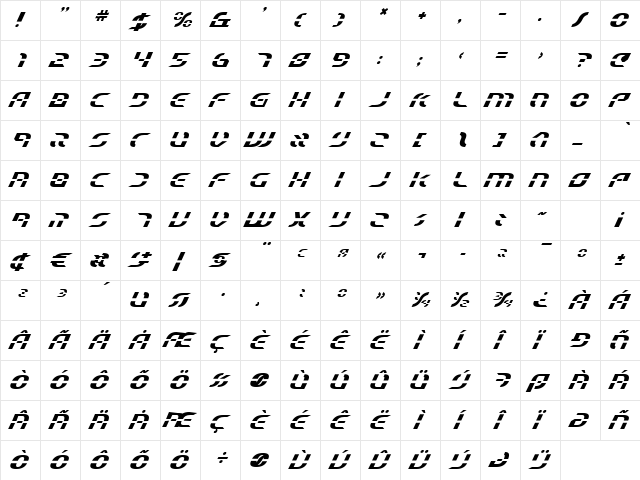
Starfighter Beta Italic Italic Font Preview
Starfighter Beta Italic Italic
Starfighter Beta Italic Italic Font Details
Design Context for Starfighter Beta Italic Typeface
Starfighter Beta Italic is a composed and adaptable typeface that performs quietly and consistently across a wide range of design contexts. The dynamic lean of this cut emphasises speed and emphasis in any layout.
Pro Tip: Try Starfighter Beta Italic for annotation and caption copy alongside an upright companion — the contrast in angle creates a dynamic but ordered typographic system.